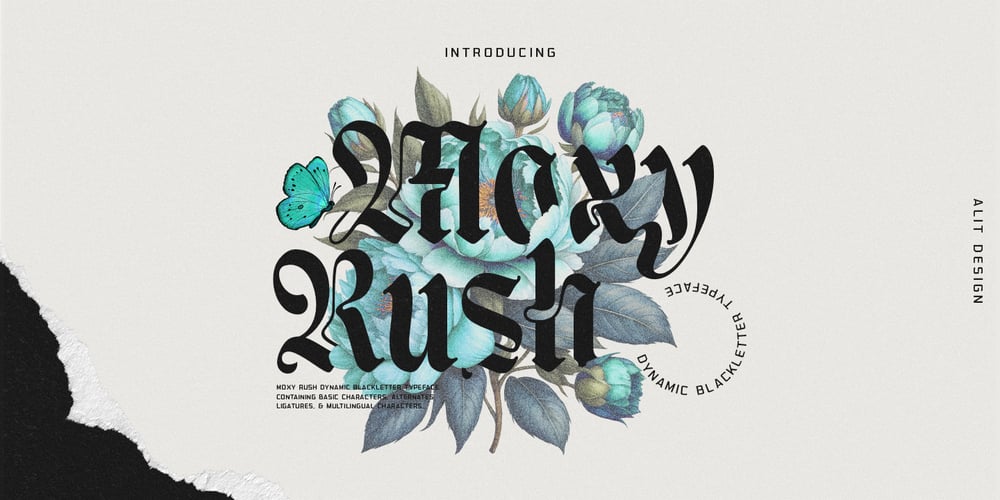
Moxy Rush
Moxy Rush font
Moxy Rush Font Family was designed by Alit Suarnegara and published by Alit Design. Moxy Rush contains 1 styles and family package options. Introducing “Moxy Rush” Font: Redefining Modern Blackletter EleganceUnleash the power of typography with “Moxy Rush,” a remarkable font that seamlessly blends the timeless essence of blackletter style with a captivating contemporary twist. This font is a true masterpiece, meticulously designed to elevate your designs, projects, and artworks to new heights of sophistication and creativity.